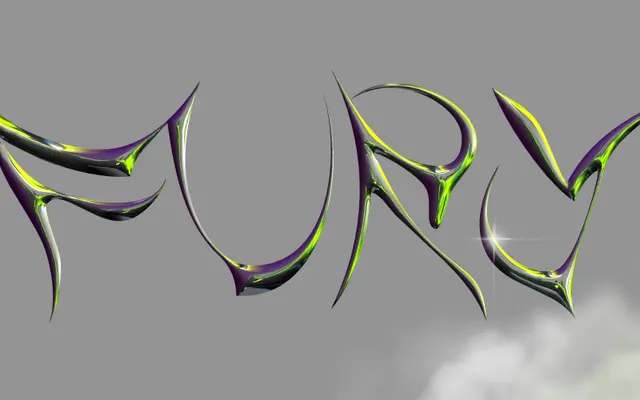
An experimental display typeface by Alex Valentina with two distinct letterform variants per character, giving the family an erratic, kinetic quality.
Designed by Italian graphic designer Alex Valentina, GabyGaby offers two separate styles for each letter mapped to upper and lowercase keys, allowing the user to alternate between forms to create a sense of irregular movement. The result is a typeface that reads as unstable and fluid rather than static, suited to expressive editorial, poster and branding contexts. Glyph count sits at 364 with broad Latin language support covering over 80 languages.
An extreme experimental typeface with erratic, fluid forms and dual letterform variants per character; firmly in the display category with no conventional structural classification applying.